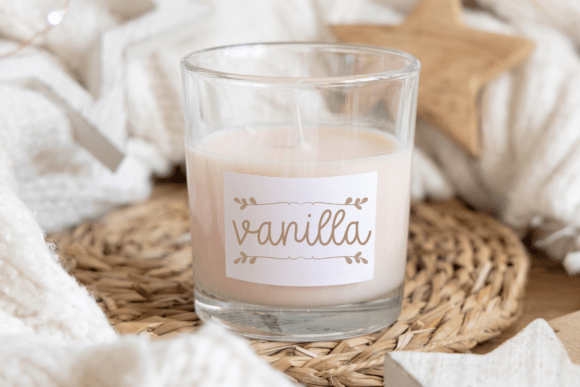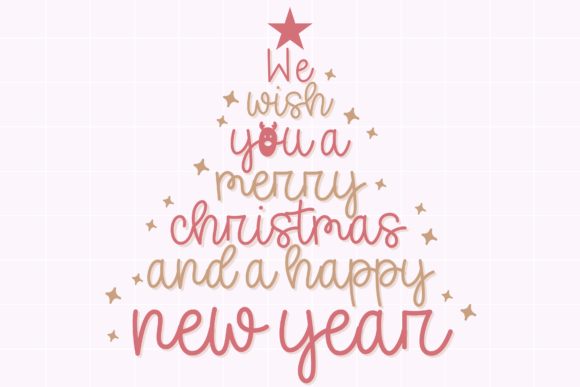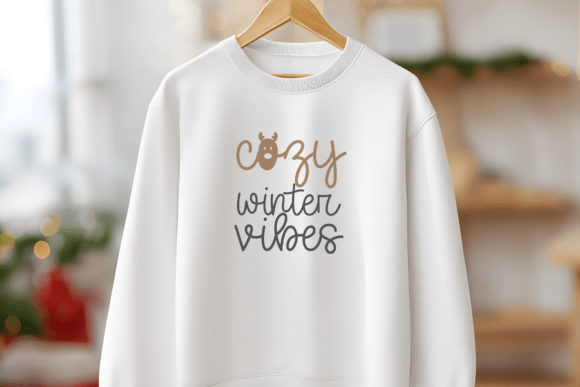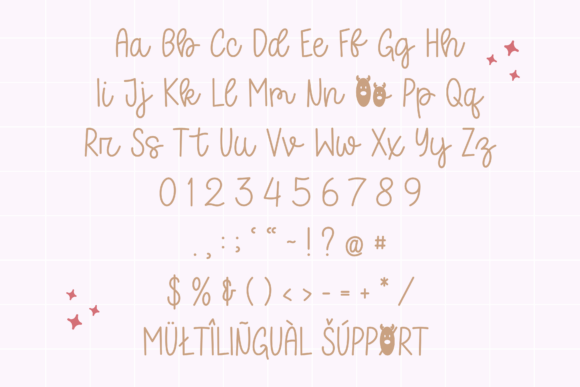
Introduction to Reindeer Hollow Font
Reindeer Hollow is a warm, hand‑written calligraphy font with charming Christmas spirit.
Its smooth, flowing letters convey a cozy, welcoming feel — and the letter “o” is uniquely designed as a cute reindeer head, adding a playful and delightful holiday touch This font is ideal for festive greeting cards, seasonal invitations, branding, gift tags, and cozy craft projects, bringing a soft, whimsical elegance to any wintertime design.
Key Features of Reindeer Hollow Font